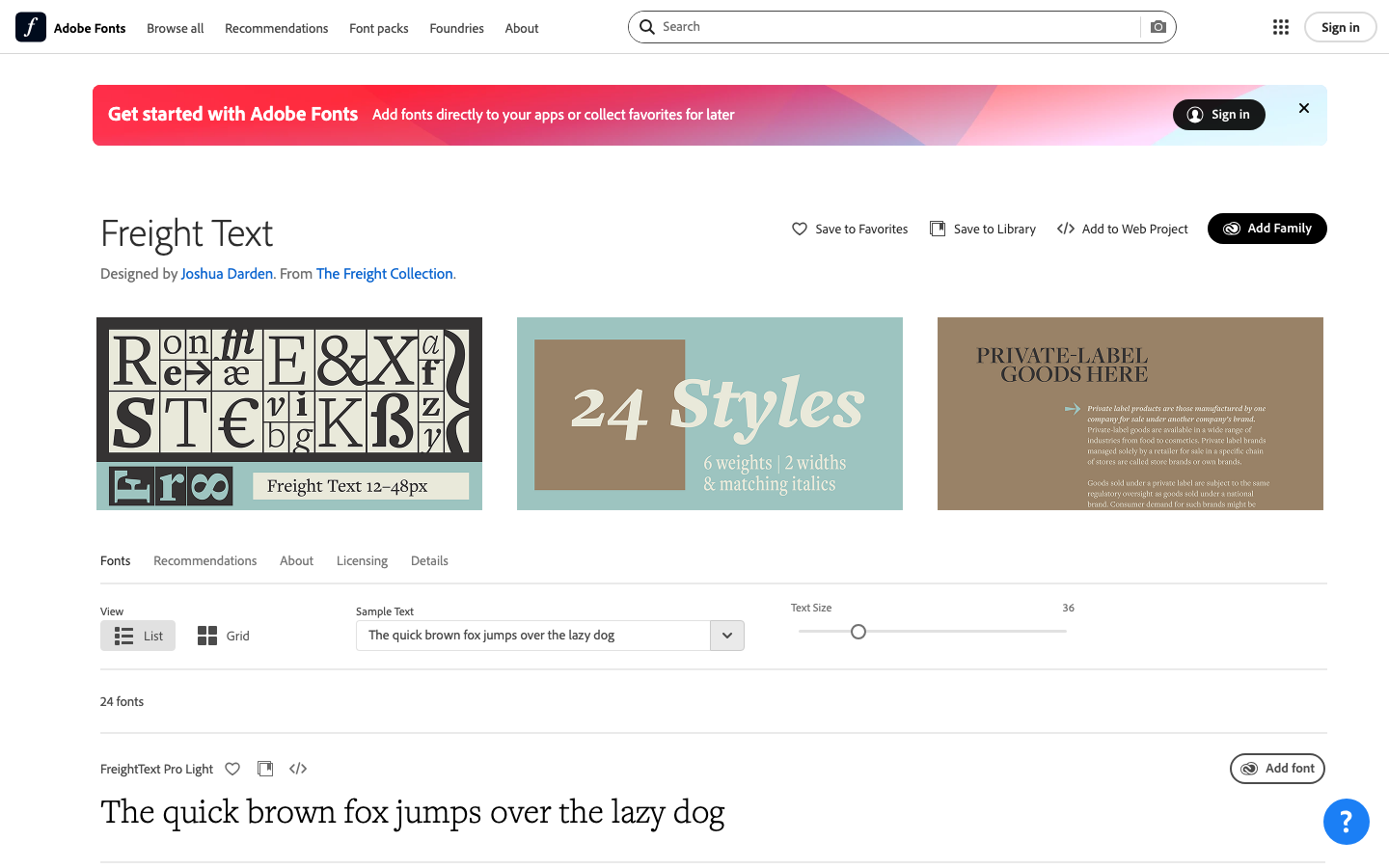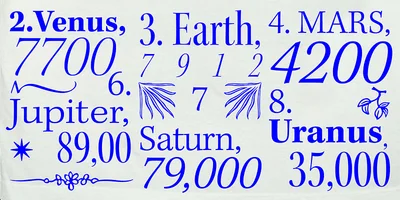
Freight Text vs Kepler
Freight Text and Kepler are both serif typefaces sharing a modern foundation. Where Freight Text leans warm, readable, Kepler brings transitional. Compare which suits your Editorial project.
77% Similarity
Design overlap:40%
Freight Text
ModernWarmReadable
Kepler
Transitional
Modern
Freight Text
Kepler
| Source | GarageFonts | Adobe |
Recommended: Freight Text
- warm, readable design character
- Suited for Web
- From garagefonts
Consider: Kepler
- transitional design character
- Suited for Books
- From adobe